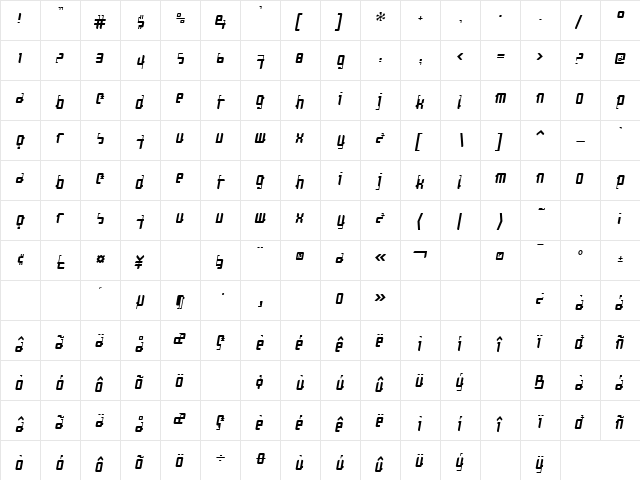
Cosmonaut AntigravityOblique
Design Context for Cosmonaut Typeface
Cosmonaut is a composed and adaptable typeface that performs quietly and consistently across a wide range of design contexts. The dynamic lean of this cut emphasises speed and emphasis in any layout.
Pro Tip: Use Cosmonaut for emphasis, pull quotes, and subheadings where its slanted energy can add rhythm to the layout.